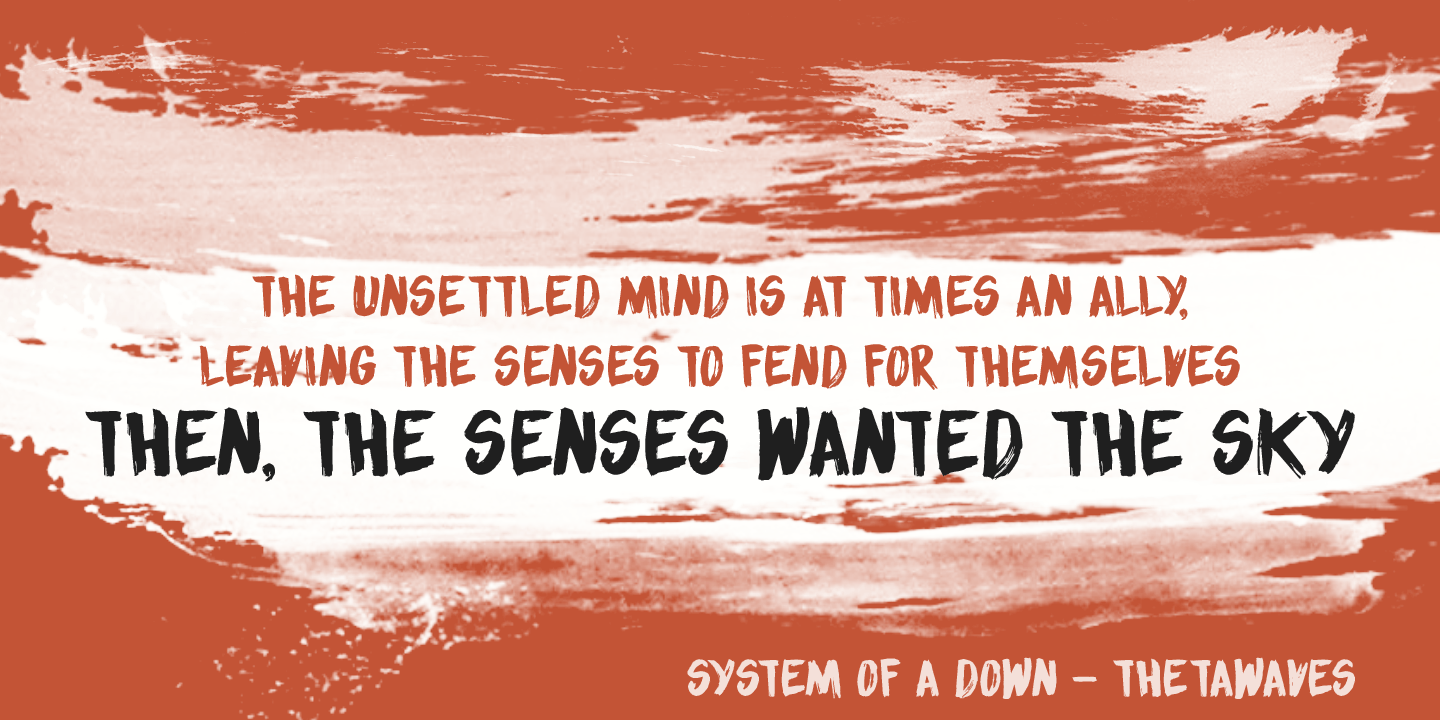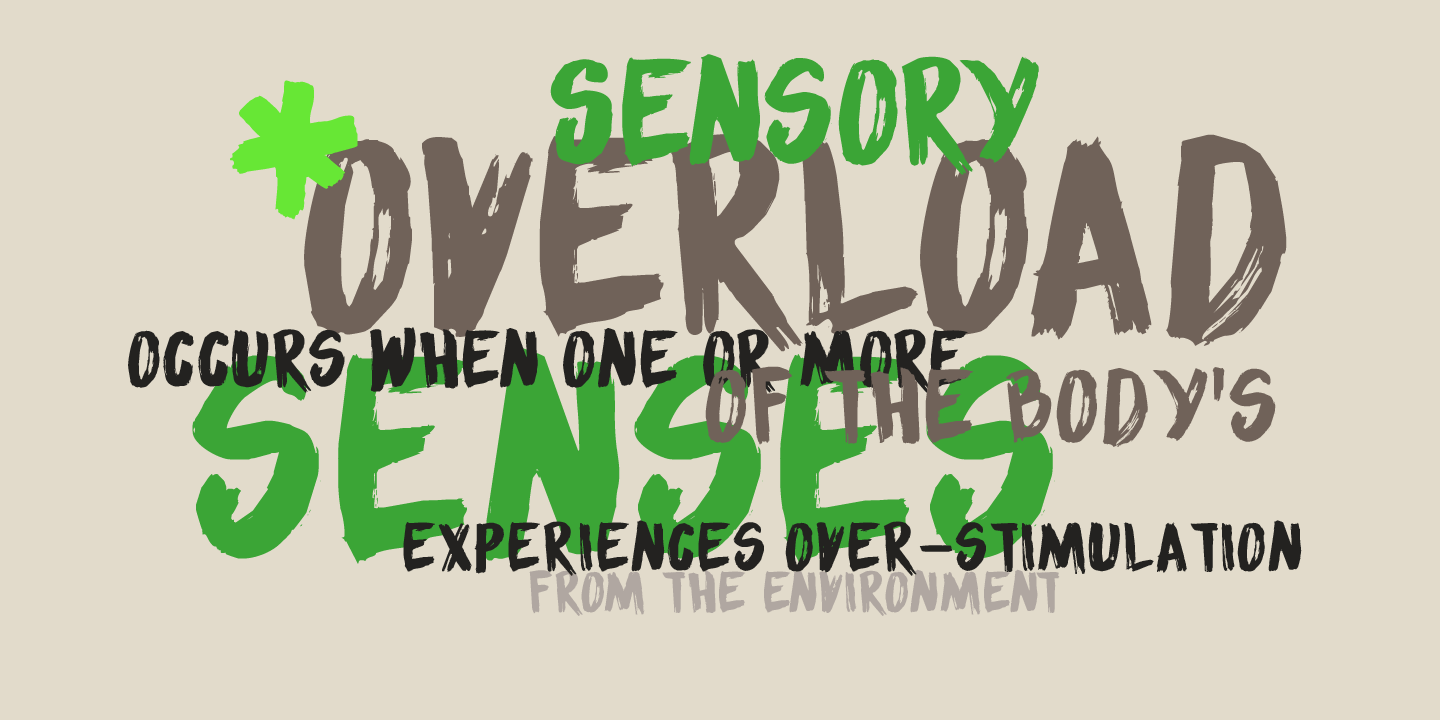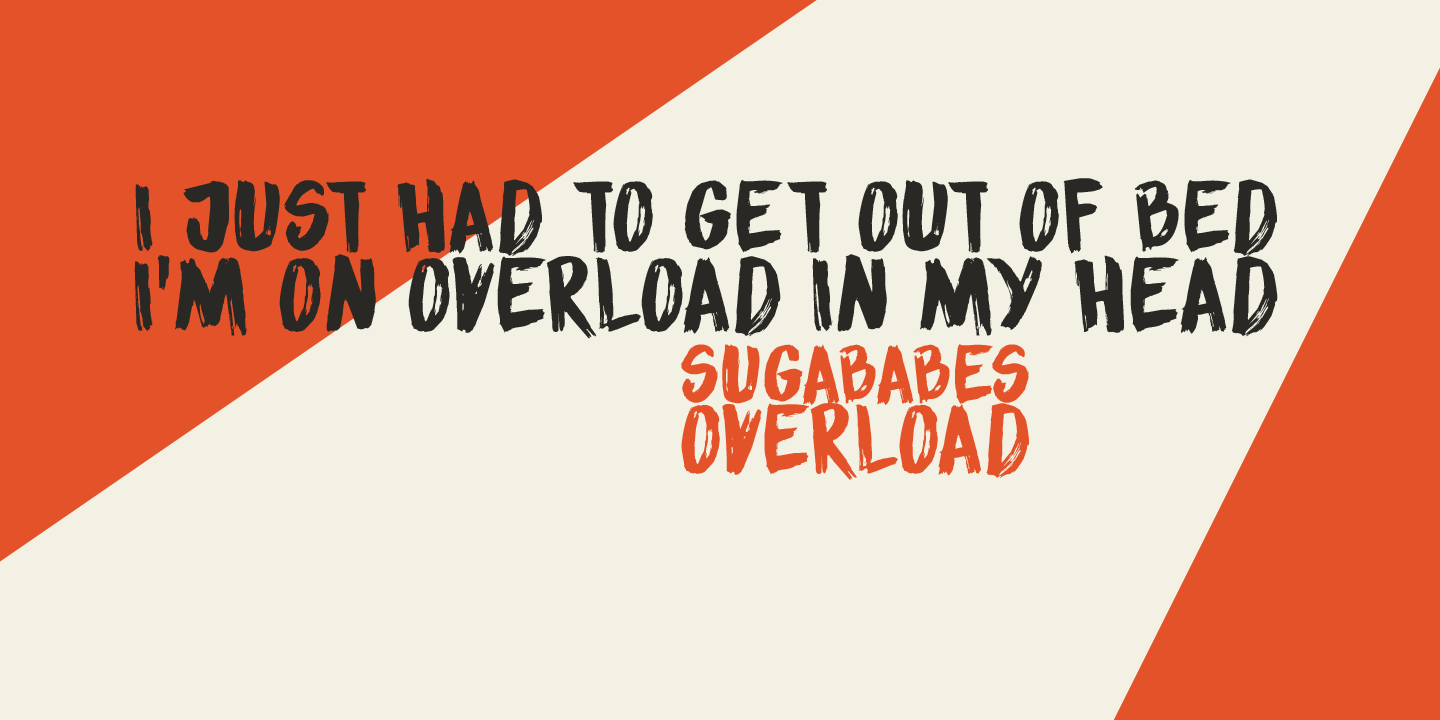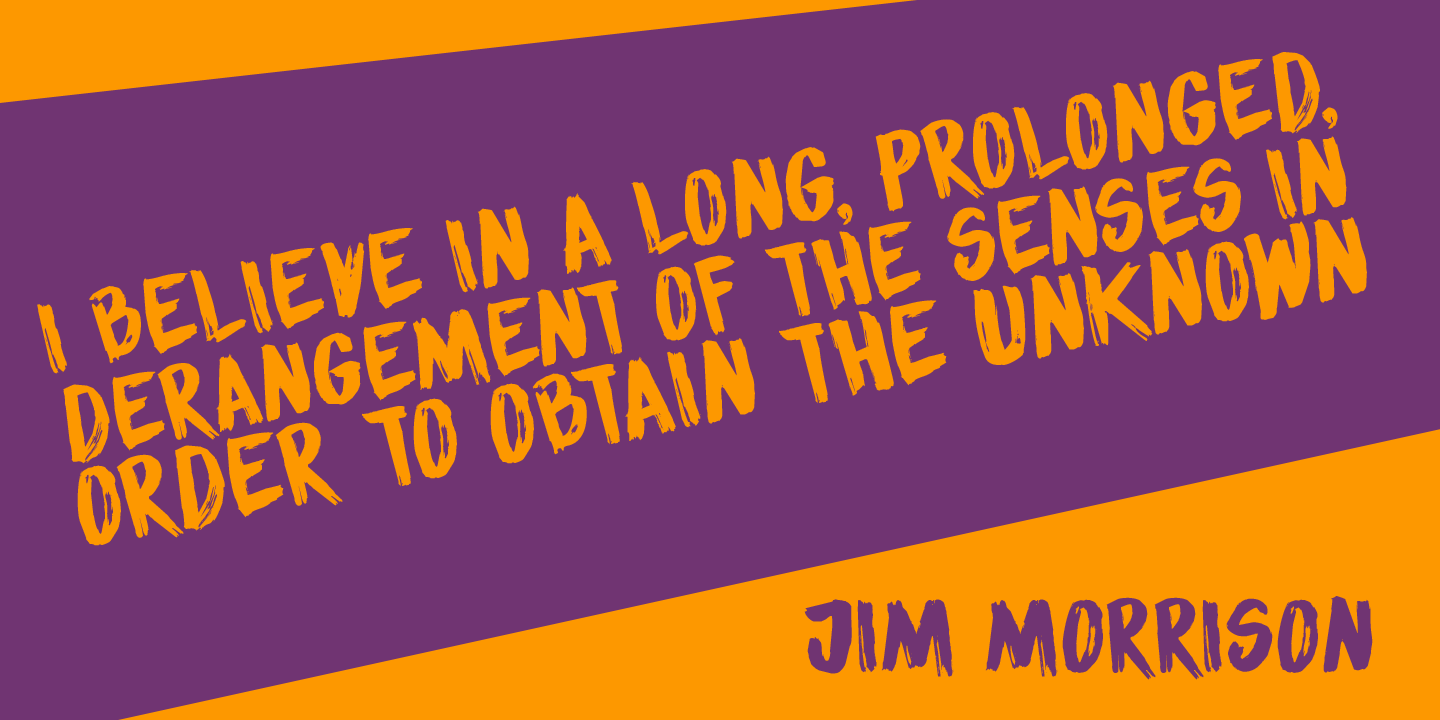
Sensory Overload
Whenever I create a font using a Chinese brush and ink, it almost always comes out scary-looking. Sensory Overload is not like that: it is quite a neat and tidy font, even if it is a little rough around the edges. Sensory Overload is an all caps typeface and would be ideally suited for book covers, headlines, packaging and posters. Comes with an overload of diacritics.